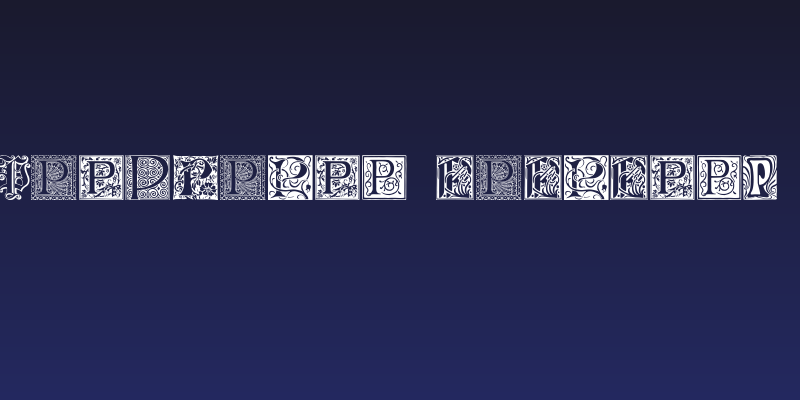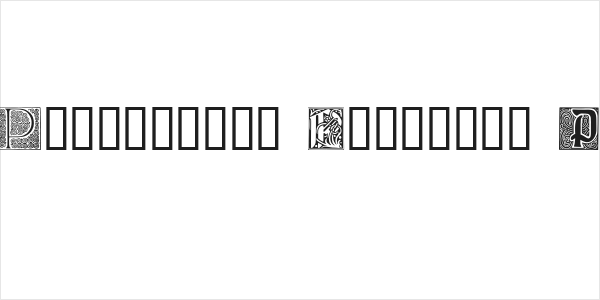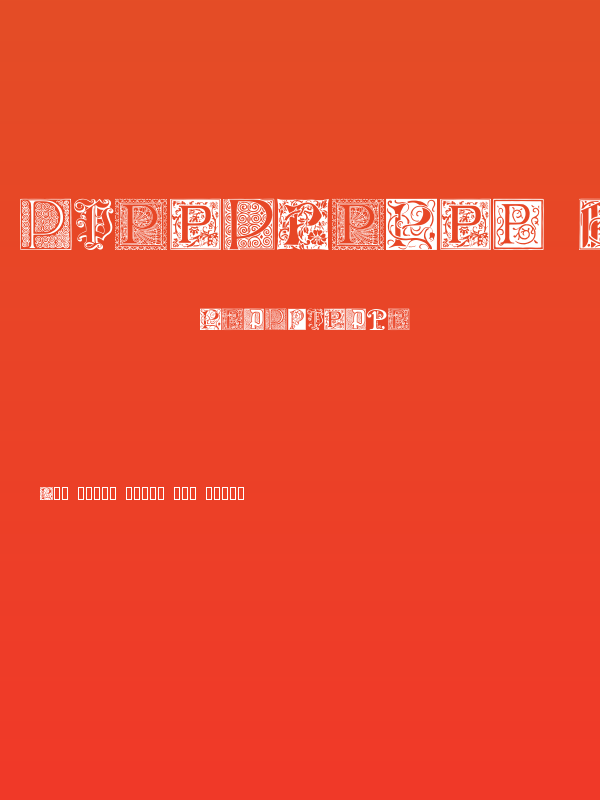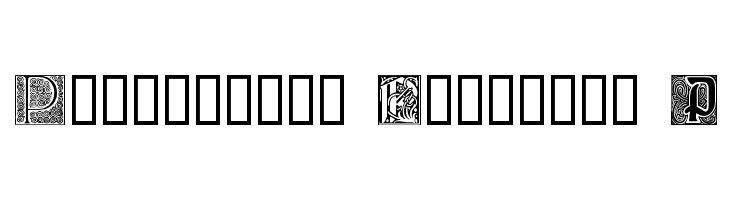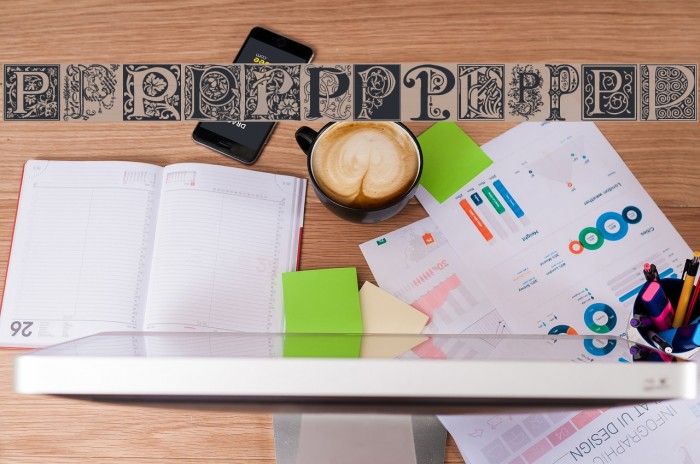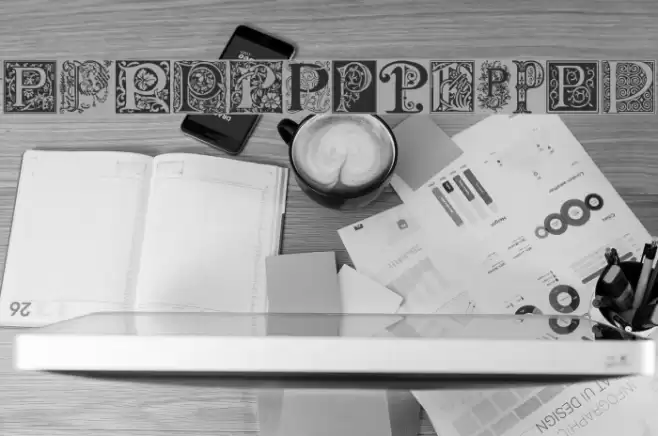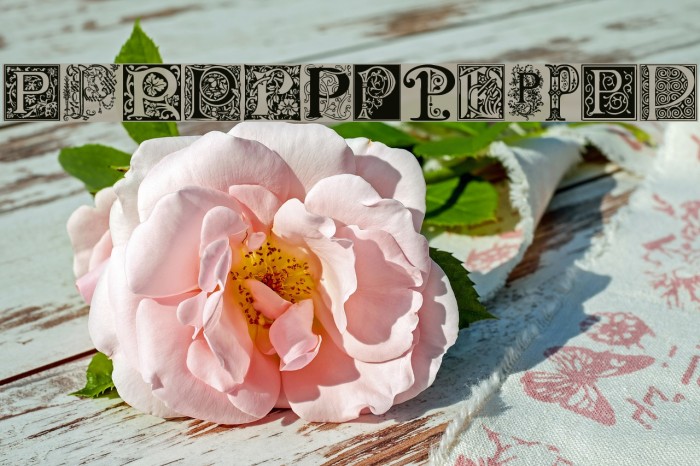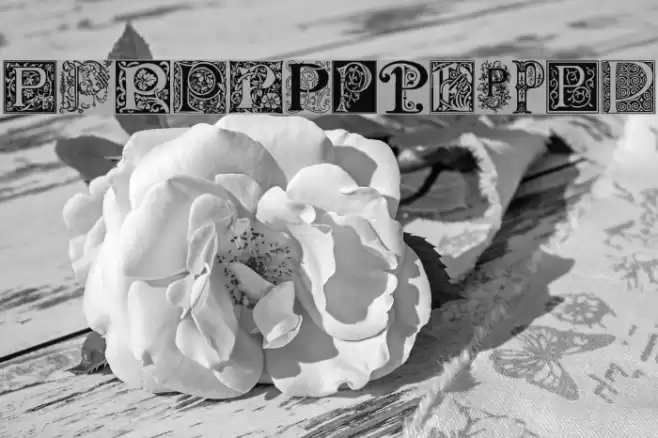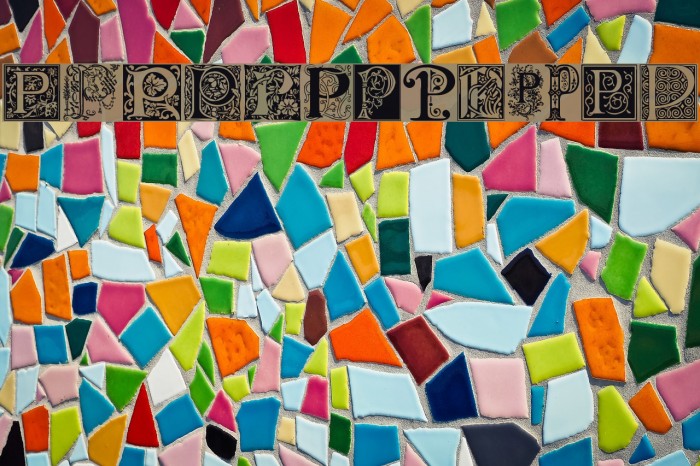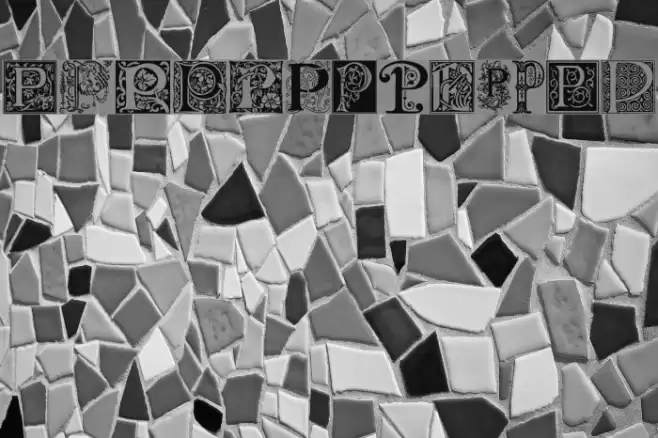
Ornamental Initials P Font
Ornamental Initials P Description
This font features highly decorative and intricate initials, each letter enclosed within a square or rectangular frame. The design is reminiscent of illuminated manuscripts, with elaborate floral and geometric patterns filling the space around the letters. The style is ornate and detailed, making it suitable for projects that require a touch of elegance and historical charm. The letters are bold and stand out against the intricate backgrounds, creating a striking visual contrast. This font is ideal for decorative purposes where the initial letter needs to capture attention and convey a sense of luxury and sophistication.
| Overall Style | Vintage |
| Proposed Projects | Ideal for wedding invitations, luxury branding, historical themed projects, and decorative book covers. |